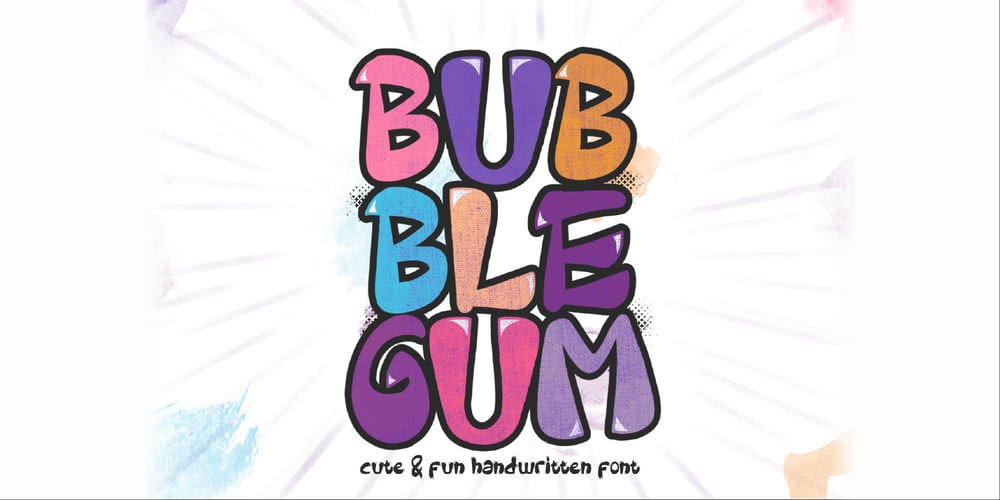
Bubblegum Cartoon Font Family was designed by Wahyu Aji Prasetyo and published by WAP Type. Bubblegum Cartoon contains 1 styles and family package options. Bubblegum is a font made in styles: With its nice and sweet appeal, it is perfect for scrapbooking, print design, stationery, blog header, greeting cards, posters, blog header and art quote.